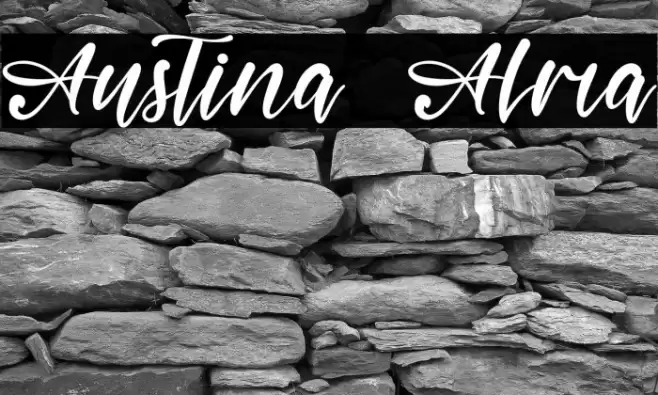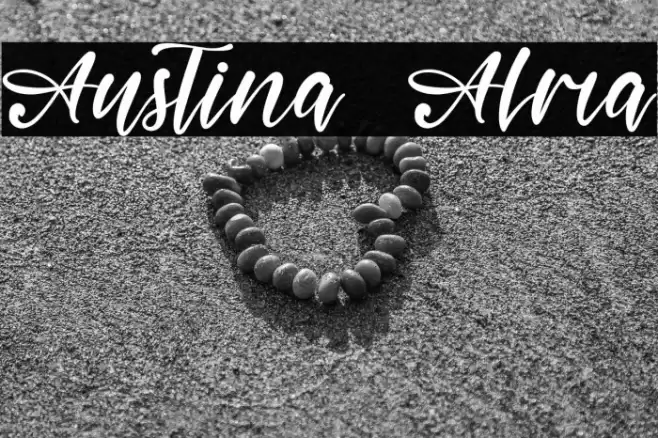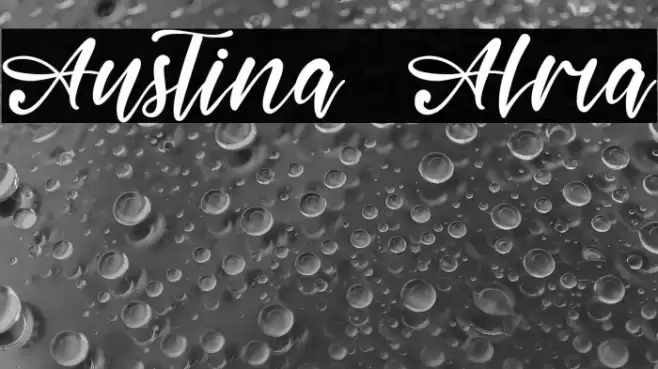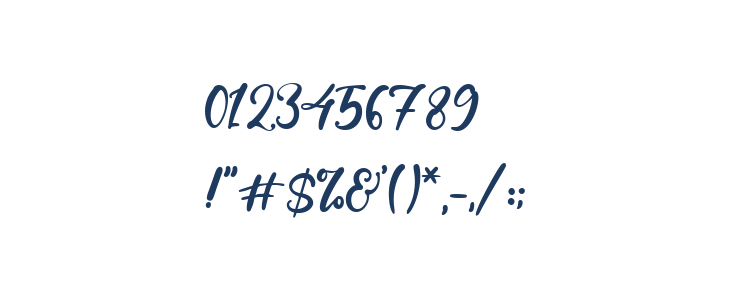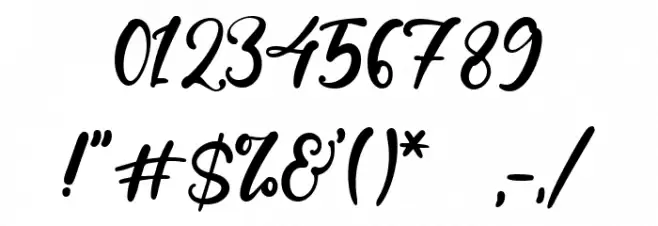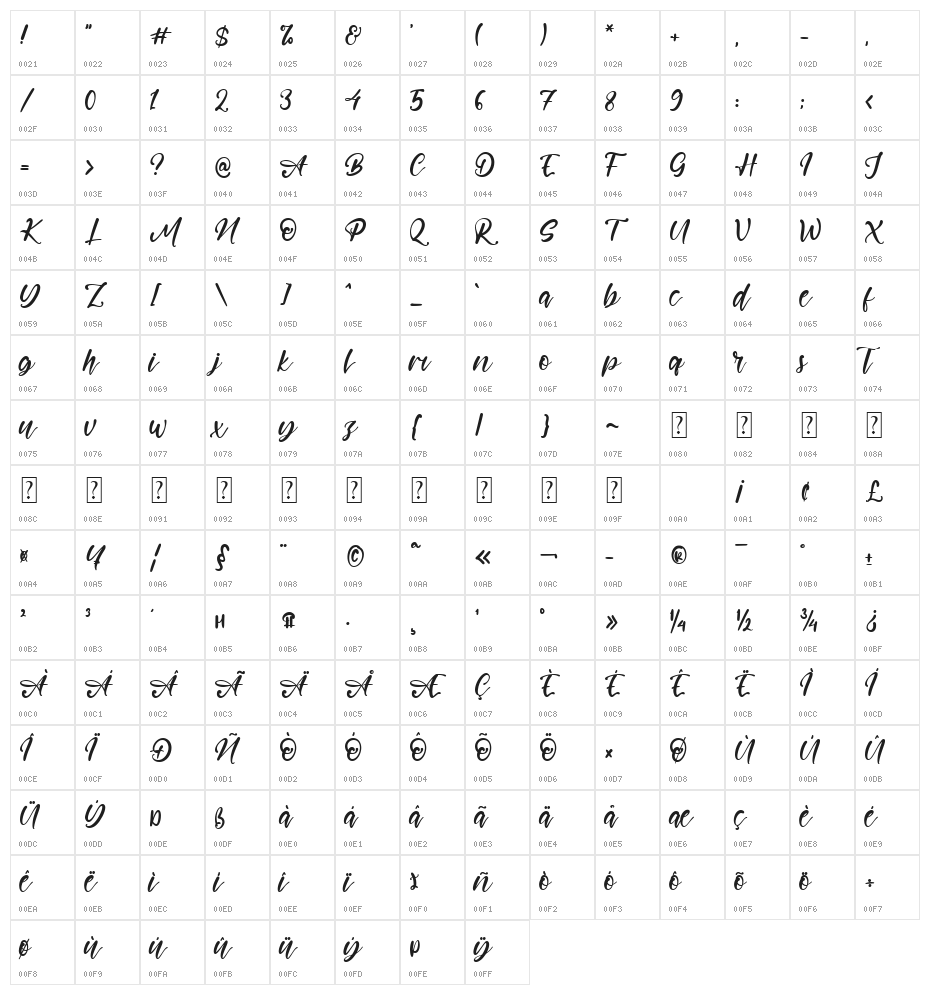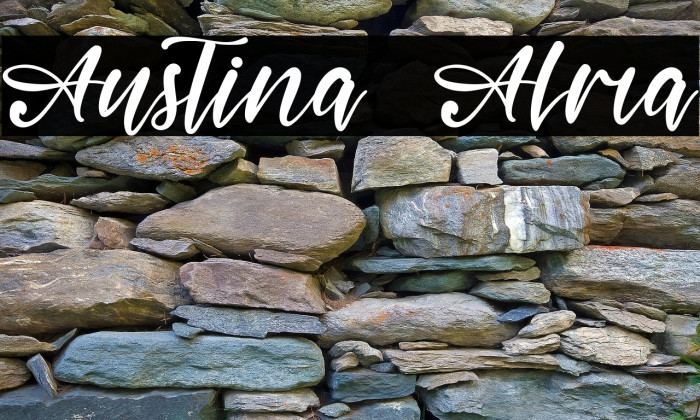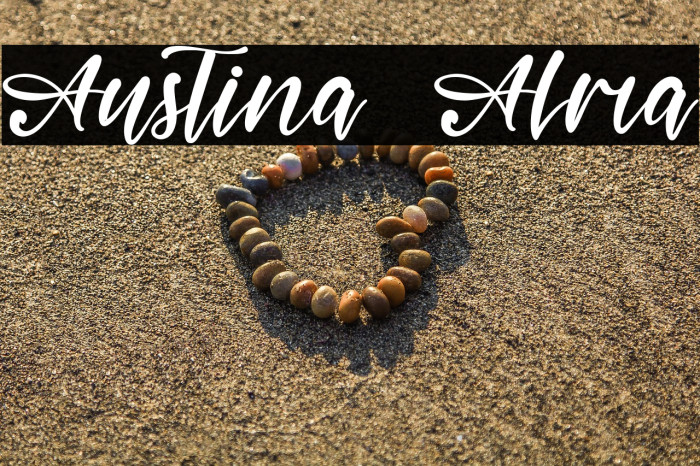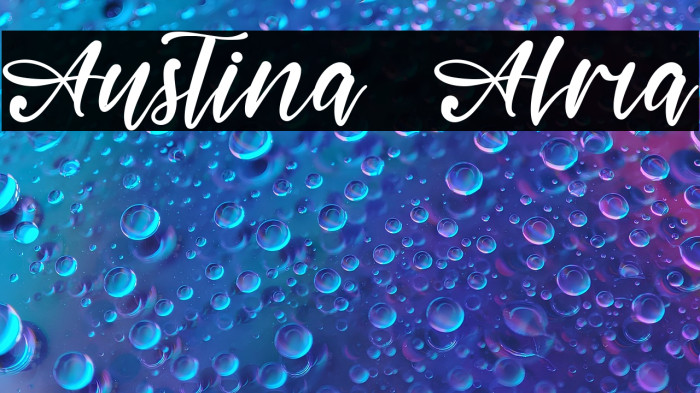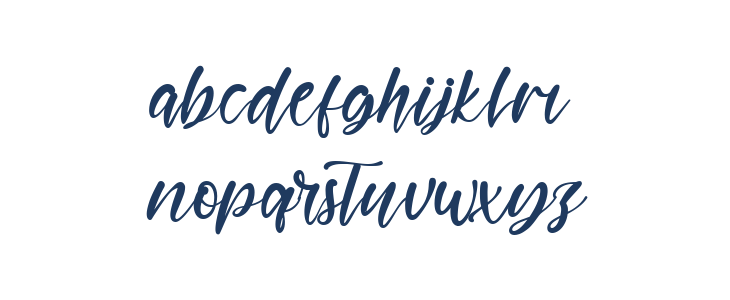
Austina Alma Font
Austina Alma Description
This font features an elegant and flowing script style, characterized by its smooth, cursive strokes and graceful curves. The uppercase letters are bold and prominent, with distinctive flourishes that add a touch of sophistication. The lowercase letters maintain a consistent flow, enhancing readability while retaining a stylish appearance. Numbers and special characters are designed to complement the overall aesthetic, ensuring a cohesive look across all text. This font exudes a sense of elegance and charm, making it suitable for a variety of creative applications.
An elegant and flowing script font with graceful curves and bold flourishes from Regular fonts.
- Proposed Projects: Ideal for wedding invitations, greeting cards, branding, and elegant logo designs.
- Overall Style: Elegant
- Use Case: Logos, Invitations, Decorative text